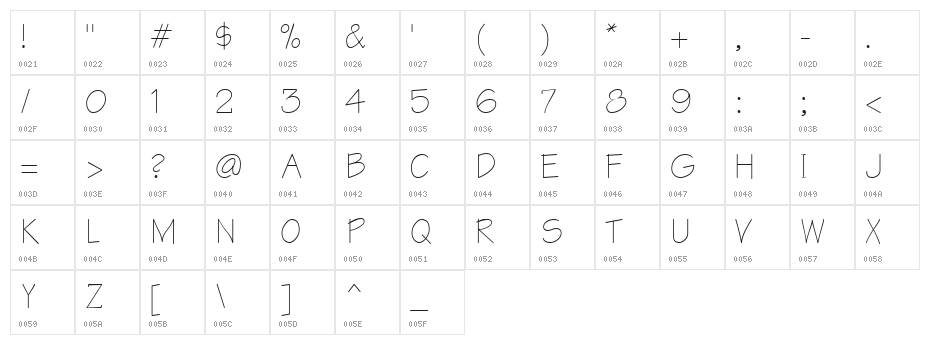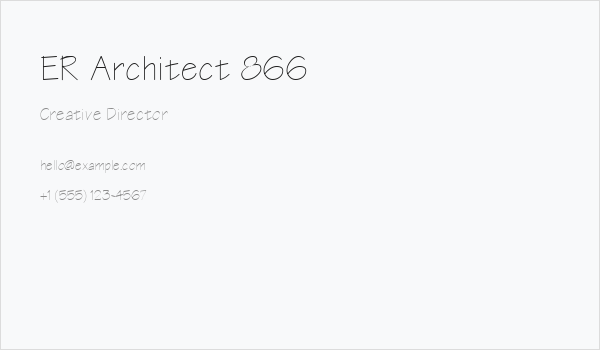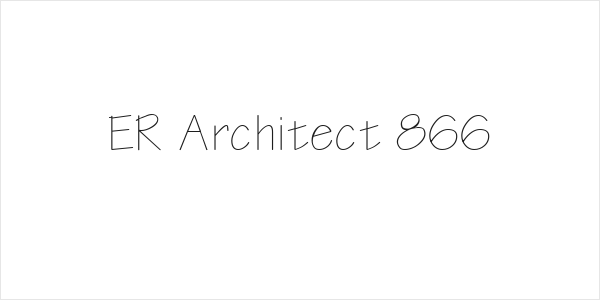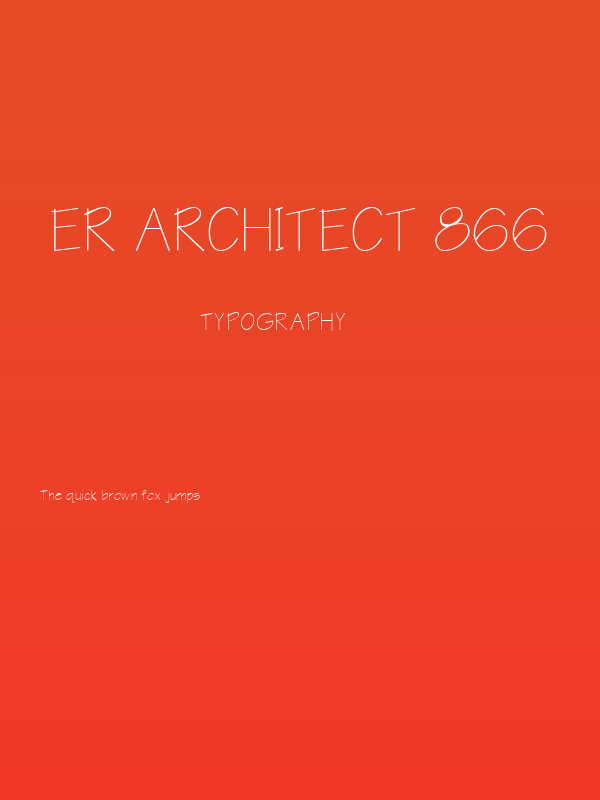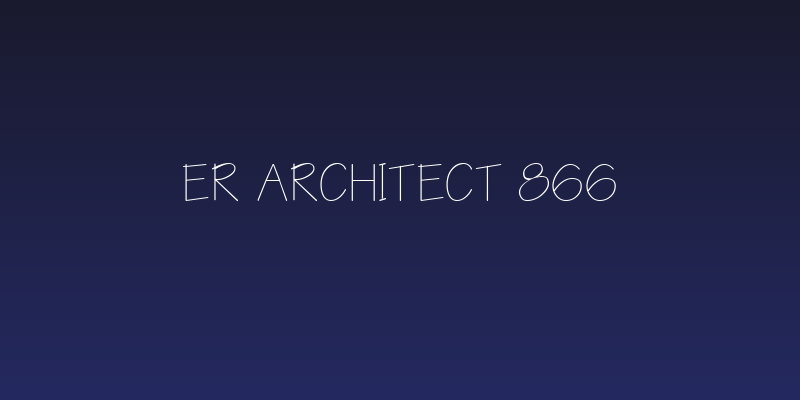
ER Architect 866 Font
ER Architect 866 Description
This font features a clean and modern design with a handwritten touch. The characters are slightly slanted, giving it a casual yet sophisticated appearance. The strokes are consistent in width, providing a uniform look across all letters and numbers. The uppercase letters are tall and narrow, while the lowercase letters maintain a similar style with a slightly more rounded approach. The numerals are clear and easy to read, making them suitable for various applications. The special characters are well-integrated, maintaining the overall aesthetic of the font.
Use CaseLogos, Invitations, Personal Branding
Proposed ProjectsIdeal for personal branding, invitations, greeting cards, and creative projects that require a personal touch.